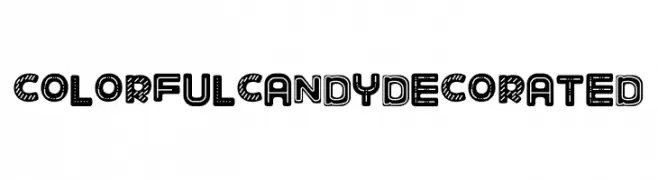
( Fonts by PutraCetol Studio )
A playful, decorative font with candy-like patterns and bold outlines.
Among the most downloaded fonts this days are COLORFUL CANDY DECORATED, Super Magical, Cult Tv Show, Okay Jelly and Udon Star. They represent modern versatility — from tech-inspired branding to elegant editorial work.